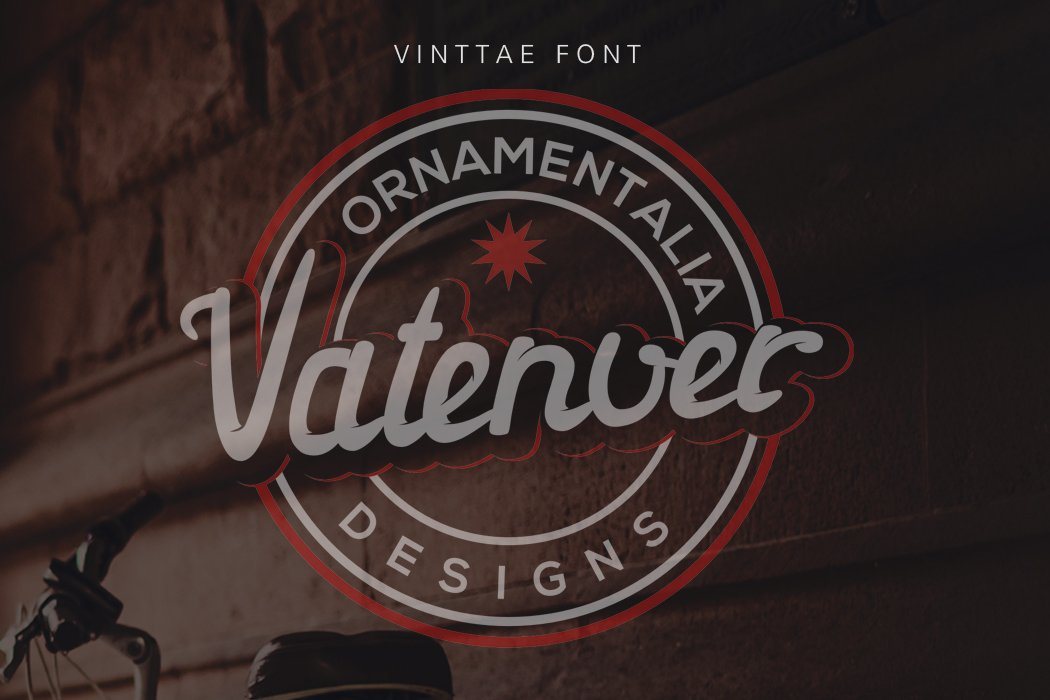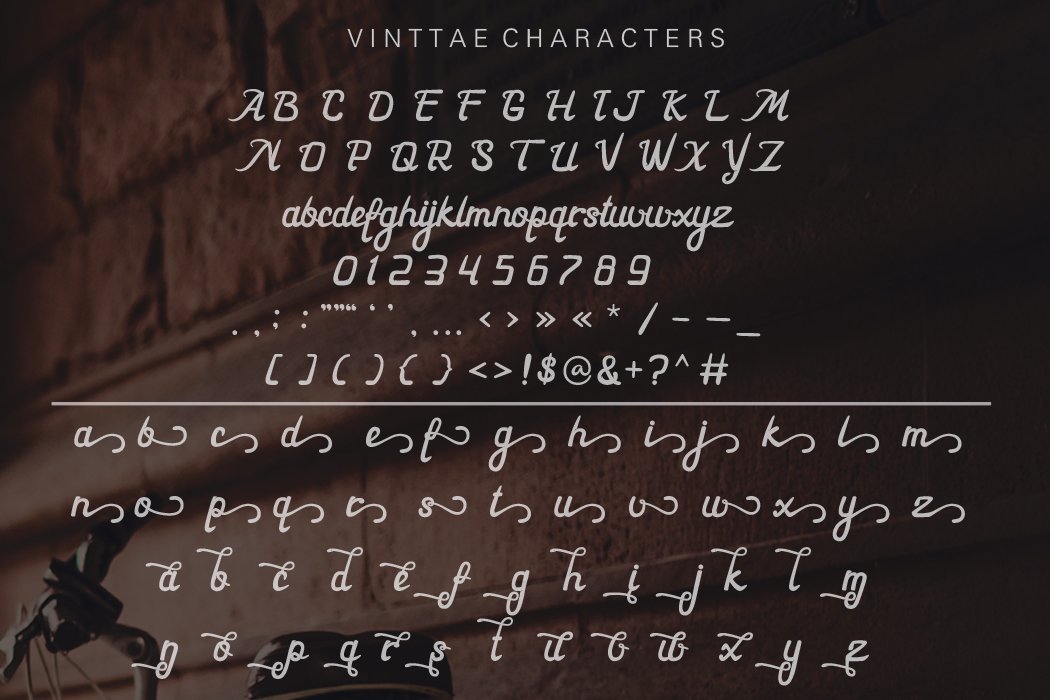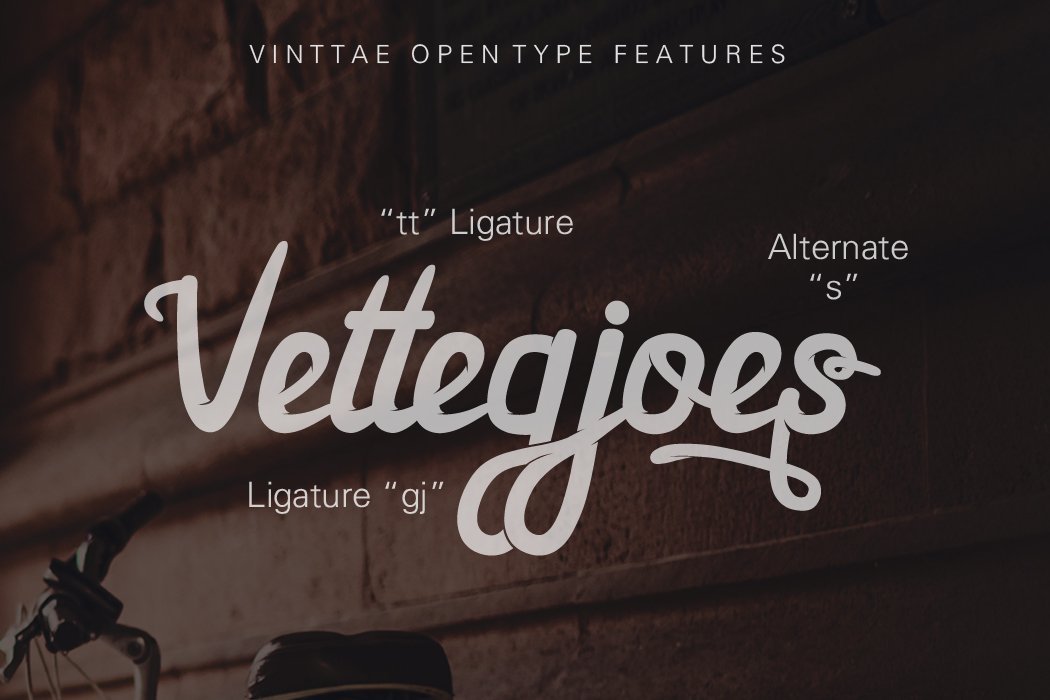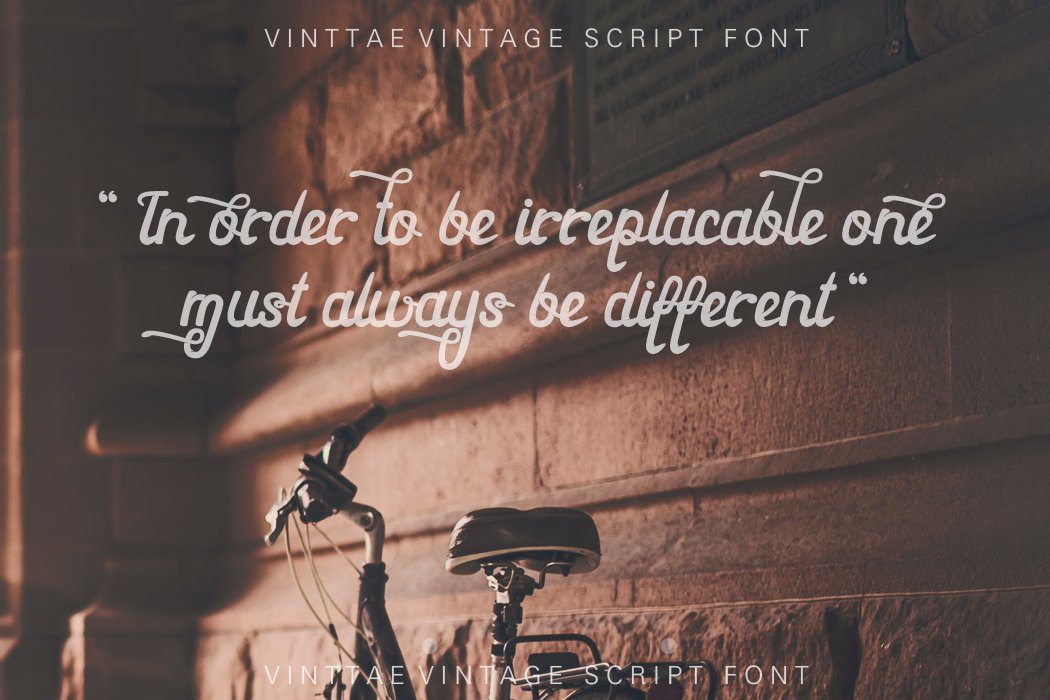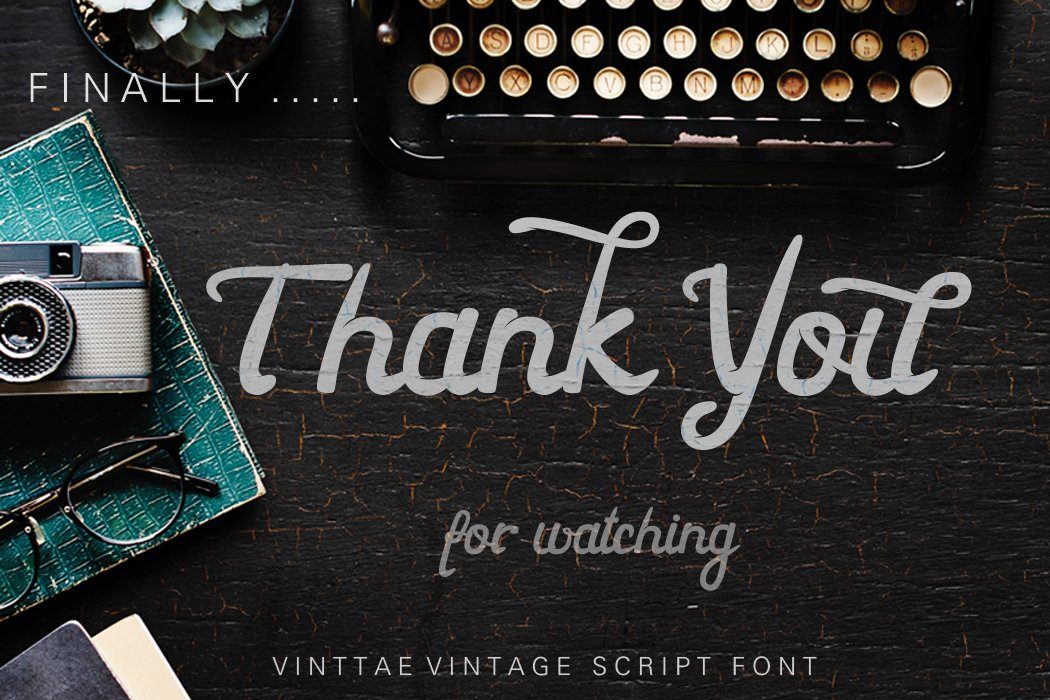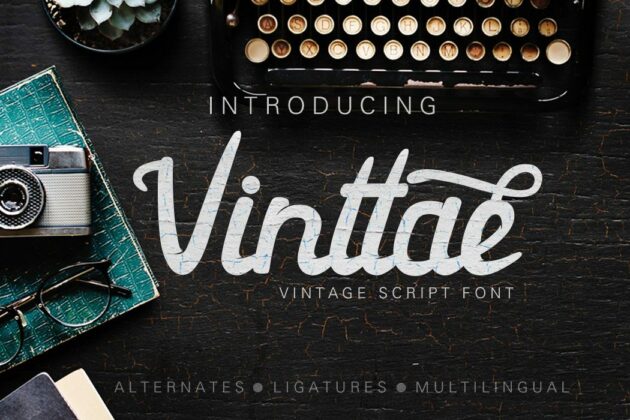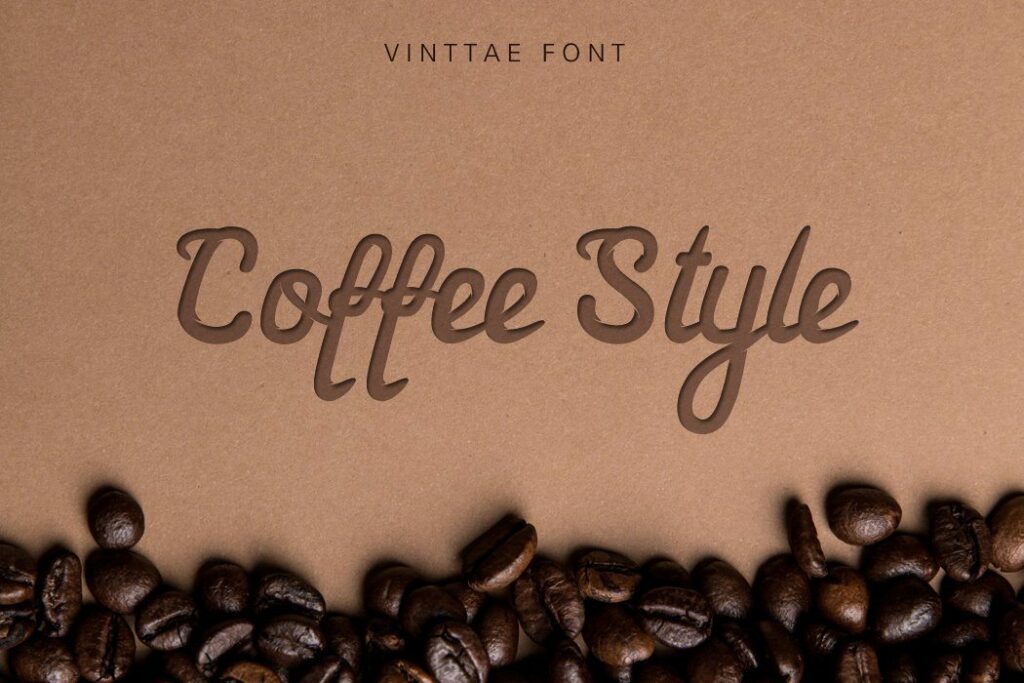
Vinttae font
Vinttae font Vinttae is a vintage script font with bold and smooth look, perfect for many vintage projects. Vinttae great for logos, quotes, headers, product packaging and many more! Features : – Available in single OTF and TTF files (Alternates also available in TTF separately ) – Uppercase A-Z – Lowercase a-z – Numbers 0-9 – Punctuation – Custom Ligatures – lowercase alternates – PUA Encoded – Multilingual support – Support for Windows, Mac and Linux OS HOW TO ACCESS ALTERNATES CHARACTERS Please install OTF file. You need a program that supports OpenType features like Adobe Illustrator CS, Adobe Indesign & CorelDraw X6-X7, Microsoft Word 2010 or later to enable OpenType features (ligatures and alternates). In this case don’t install all files that we’ve provided, just need one OTF file. Please install all TTF files You should install all of TTF files in case you don’t have the programs that support OpenType features, so you can access all characters in almost all text processing program (Photoshop, CorelDraw etc). If you have any questions regarding this product kindly leave your message through the contact form, comment field or contact us at  Enjoy Vinttae font!! Thank you..